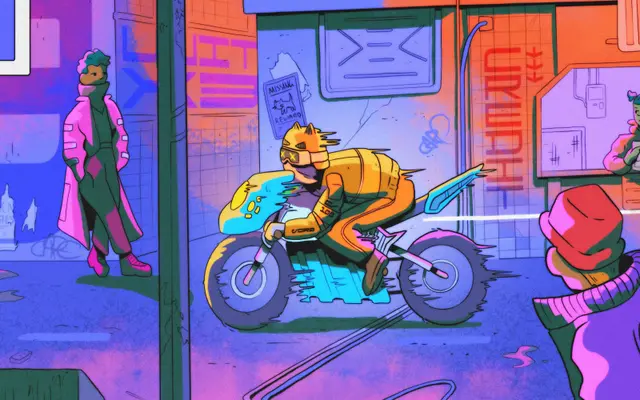
Dysto
The Designers Foundry · Joseph Dennis
A variable display sans with monospaced construction and reverse contrast, drawing on 1980s science fiction visual language across six widths and three weights.
Built on modular, directly proportionate forms, Dysto spans 36 static styles plus a variable font with weight, width and slant axes. Six stylistic sets handle serifs, alternate OQ8, X variants and a modified D, while 58 discretionary ligatures support expressive typesetting. The 22.5-degree slant and wide width range make it well suited to poster work, motion graphics and identity projects that need a retro-futurist register.
Dysto is a display-oriented geometric sans with monospaced architecture, modular construction and reverse contrast strokes drawn from 1980s sci-fi visual culture. Its highly stylised letterforms and variable axes push it firmly into display territory.